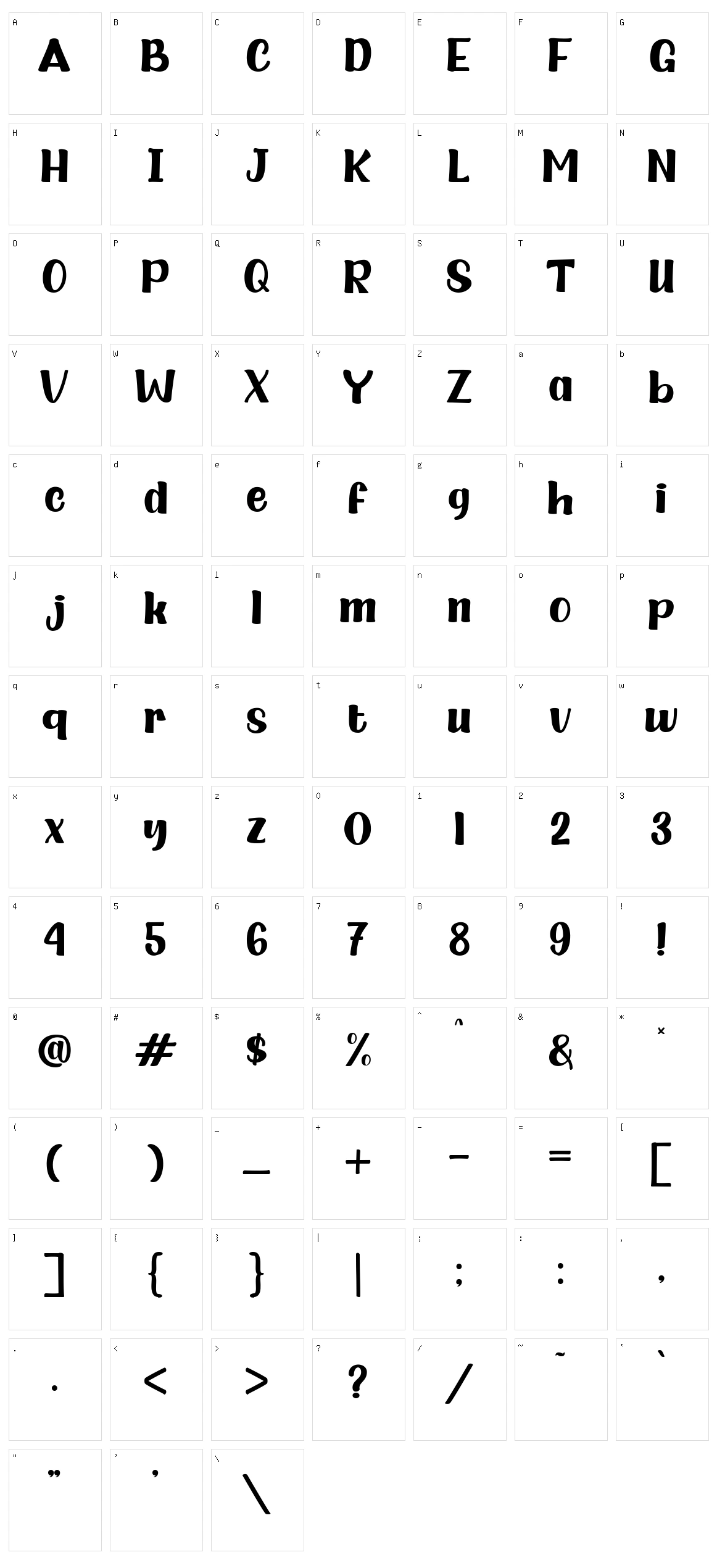
The free font Bubble Jelly is carefully designed by The Typerex, showcasing a thoughtful balance of creativity and usability and falls under the Cartoon font style. When you download the ZIP file, it contains only 271.85 KB of font files, making it lightweight and quick to download. Please review the license details below to understand permitted usage and distribution rights. If license information is not available, we recommend using this font for personal projects only or contacting the author directly for commercial usage permissions.